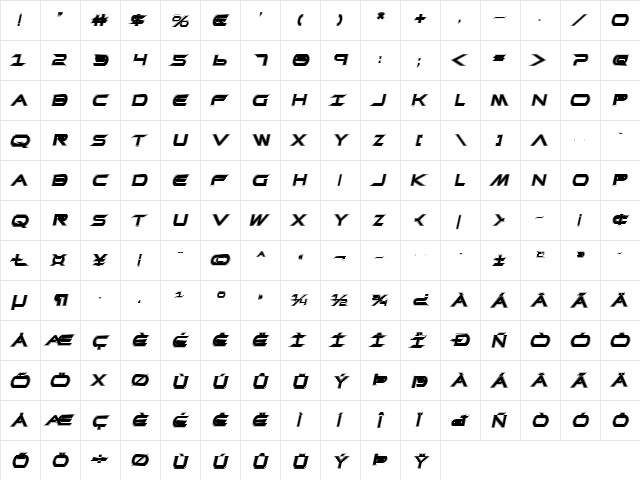
Promethean College Italic Italic
Design Context for Promethean College Italic Typeface
Promethean College Italic brings high-energy athletic personality to the page — its confident, muscular forms are built for impact. The slanted form adds forward momentum and visual energy.
Built for sports team identities, athletic apparel, event posters, and high-energy promotional material.
Pro Tip: Promethean College Italic thrives on contrast — try it large, bold, and tight against a clean background for maximum visual impact.